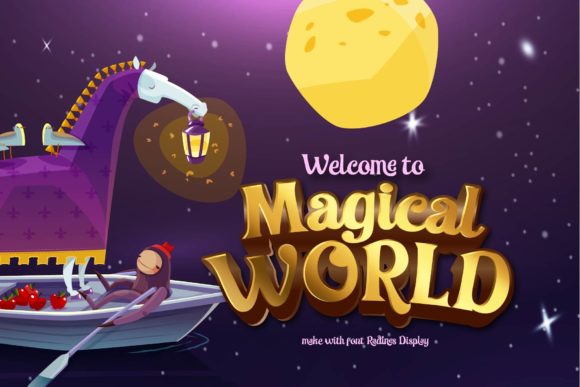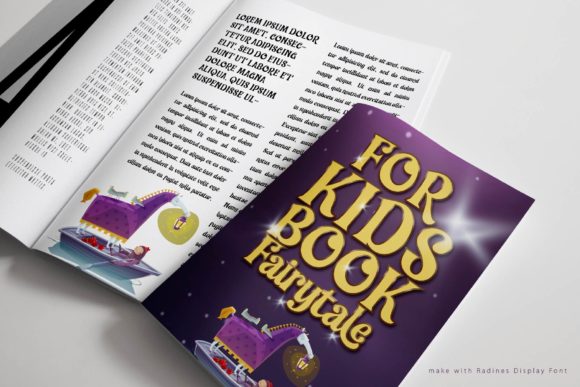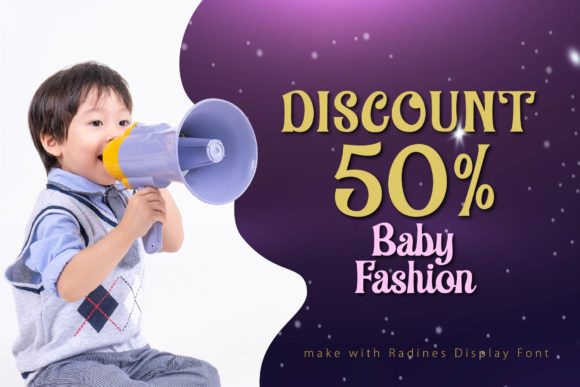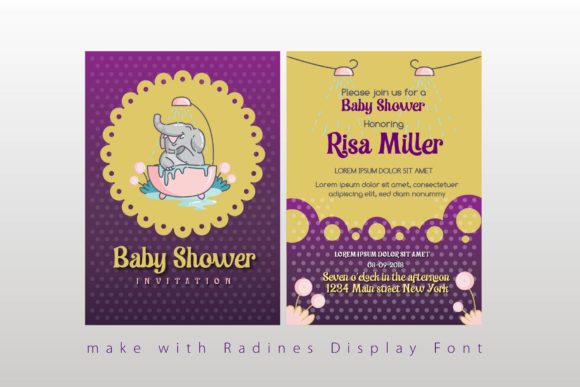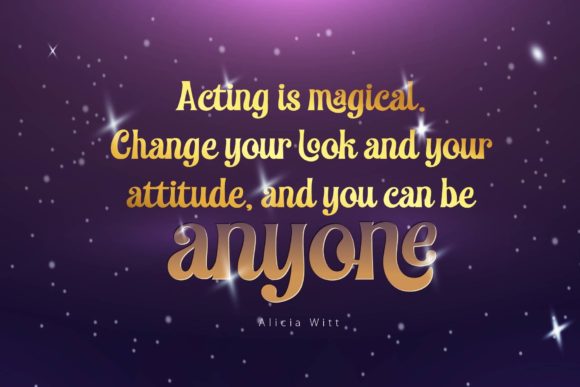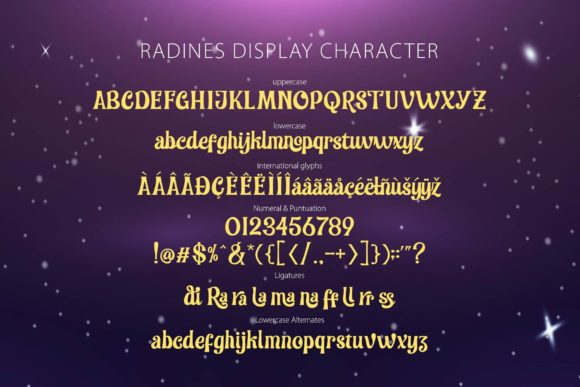
Introduction to Radines Font
Radines is a cool, bold and retro styled display font.
This font reads as strong, confident, and dynamic and can add tons of nostalgic character to your designs .